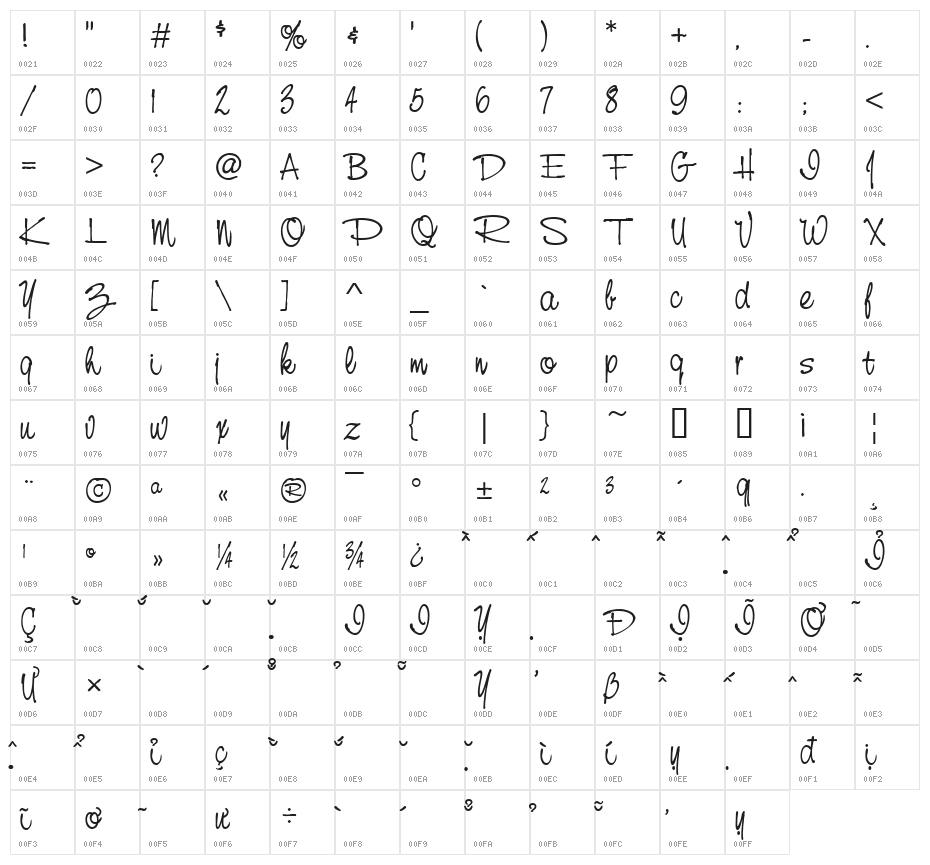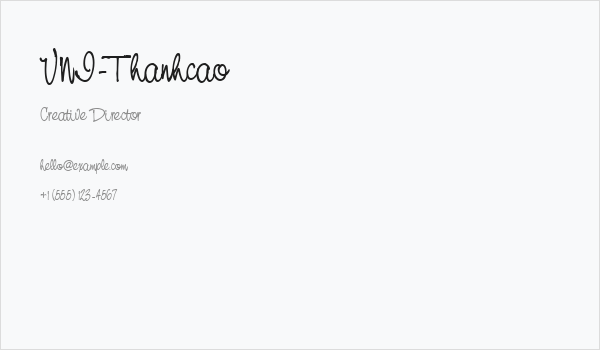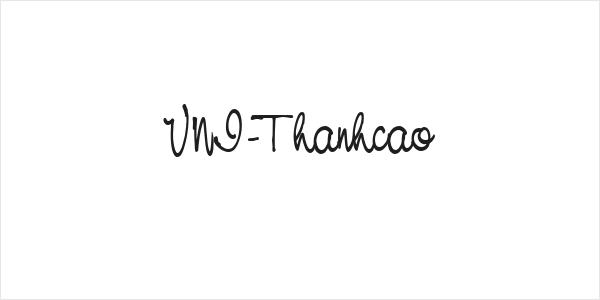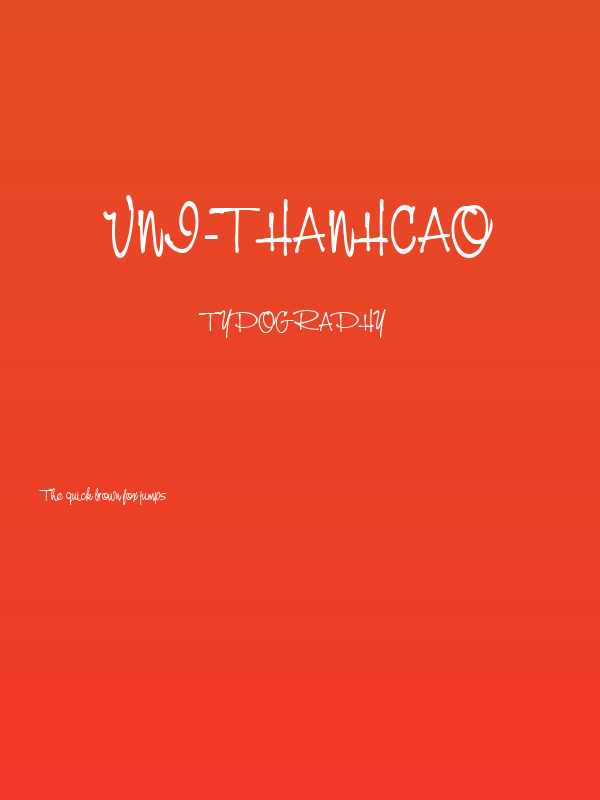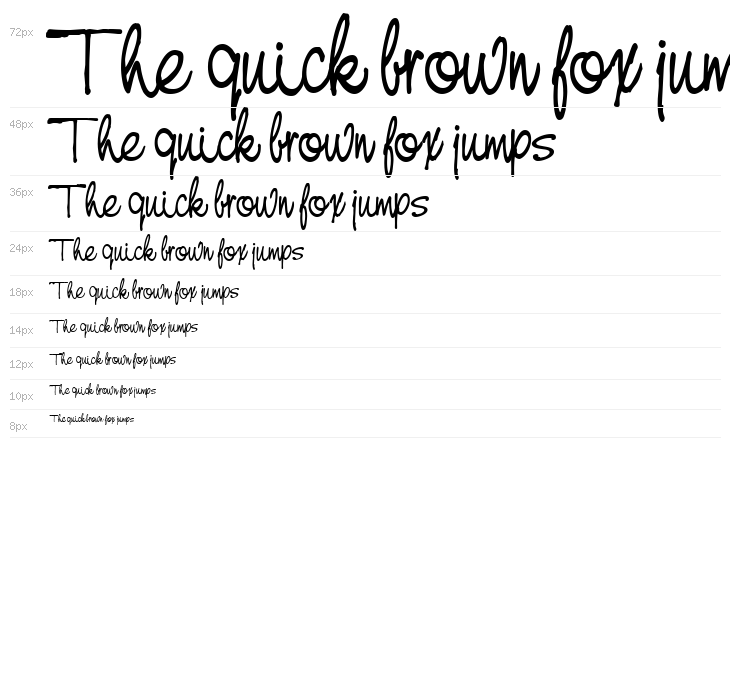
VNI-Thanhcao Font
VNI-Thanhcao Description
This font features a playful and casual handwritten style, characterized by its fluid and dynamic strokes. The uppercase letters are slightly taller and more elongated, while the lowercase letters maintain a consistent flow, giving the text a lively and informal appearance. The numbers are rounded and maintain the same playful aesthetic, making them easily readable. Special characters are integrated seamlessly, maintaining the overall whimsical feel. The font's design is perfect for projects that require a personal touch, such as invitations, greeting cards, or creative branding.
| Proposed Projects | Ideal for invitations, greeting cards, creative branding, and personal projects. |